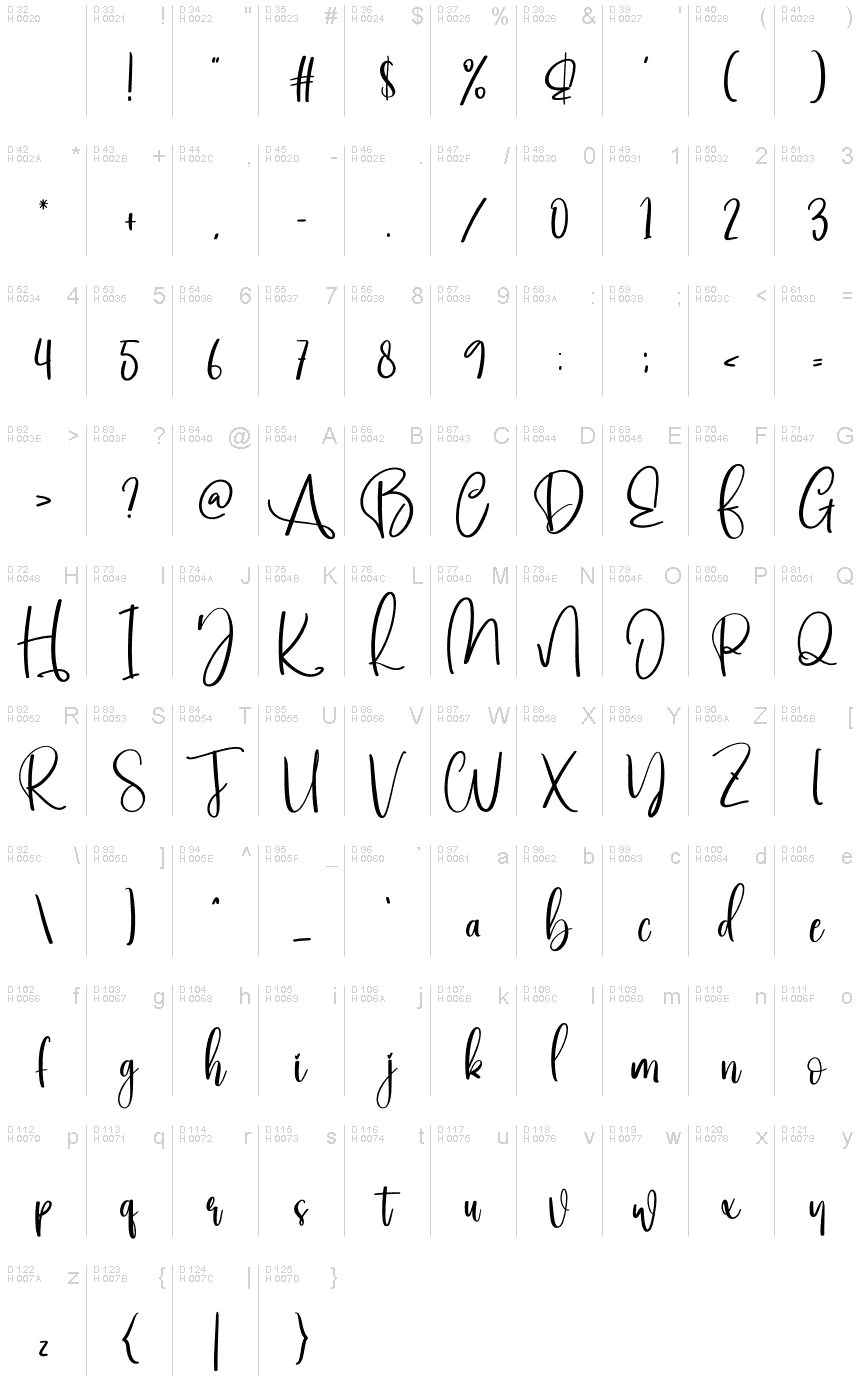
Stay Work
Stay Work, designed by Scratchones, is a handwritten font that exudes a sense of personal touch and creativity. Its semi-light weight gives it an airy and approachable feel, making it ideal for designs that require a blend of elegance and casual flair. With its sweeping curves and natural lines, Stay Work captures the essence of handcrafted artistry.
This font's aesthetic appeal lies in its balance between readability and stylistic charm. The deliberate irregularities mimic authentic penmanship while maintaining a cohesive visual rhythm. Such characteristics position Stay Work as a versatile choice for projects ranging from personalized invitations to branding elements that seek to convey warmth and individuality.
Whether you're crafting book covers, marketing materials, or social media graphics, Stay Work can infuse your work with a distinctive style that stands out while maintaining an easy-to-read form. Embrace the unique personality of Stay Work for your next creative endeavor where subtlety and sophistication are paramount.
This font's aesthetic appeal lies in its balance between readability and stylistic charm. The deliberate irregularities mimic authentic penmanship while maintaining a cohesive visual rhythm. Such characteristics position Stay Work as a versatile choice for projects ranging from personalized invitations to branding elements that seek to convey warmth and individuality.
Whether you're crafting book covers, marketing materials, or social media graphics, Stay Work can infuse your work with a distinctive style that stands out while maintaining an easy-to-read form. Embrace the unique personality of Stay Work for your next creative endeavor where subtlety and sophistication are paramount.